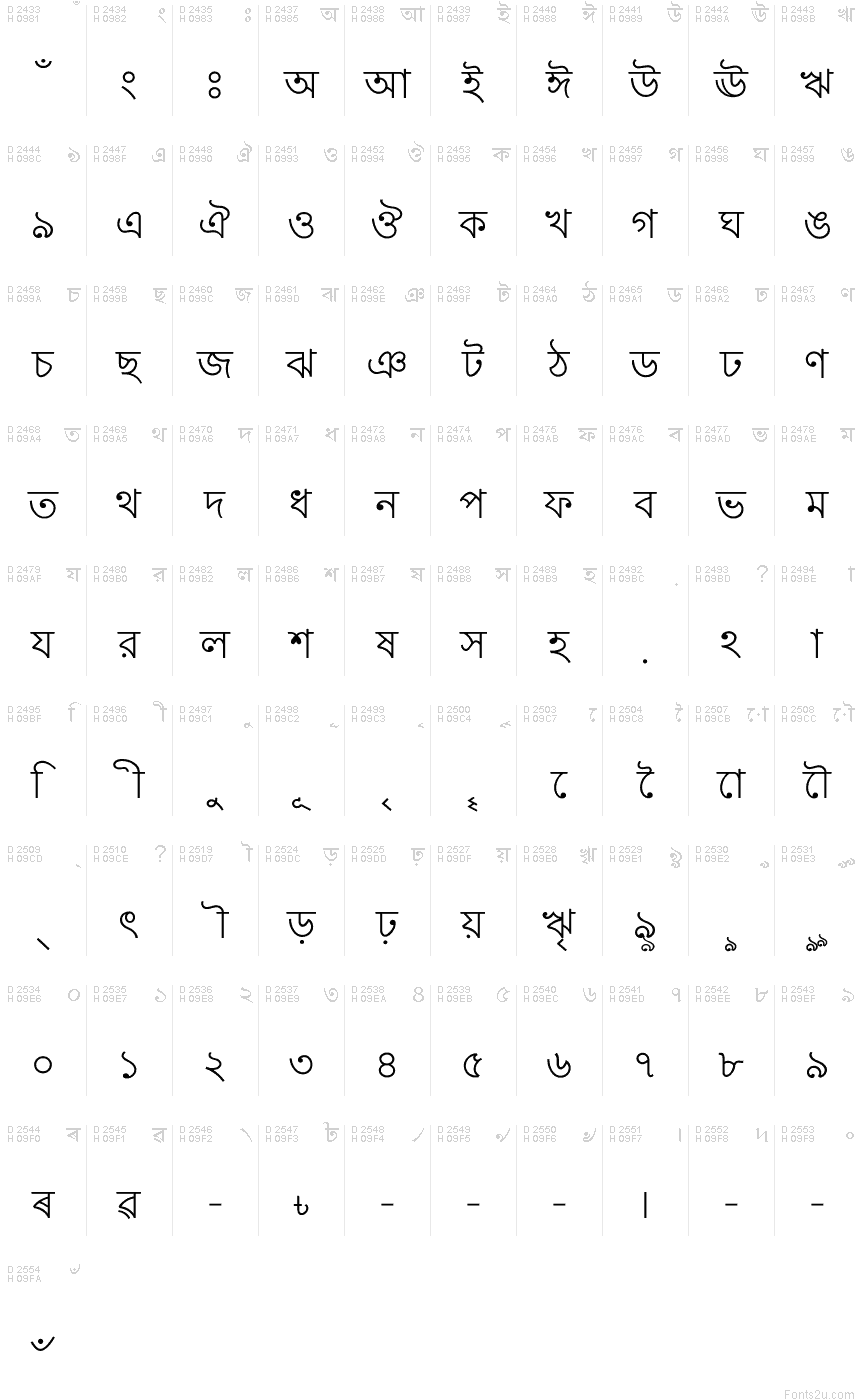
Version 1.01 Has 480 Glyphs And No Kerning Pairs Support:
Later The Fonts Is Modified By The Contributors Of Ekushey.org.
Original glyphs are taken from lohit bengali font. See preview ekushey lohit font, write comments, or download ekushey lohit font for free. Unicode conversion was done by ekushey.